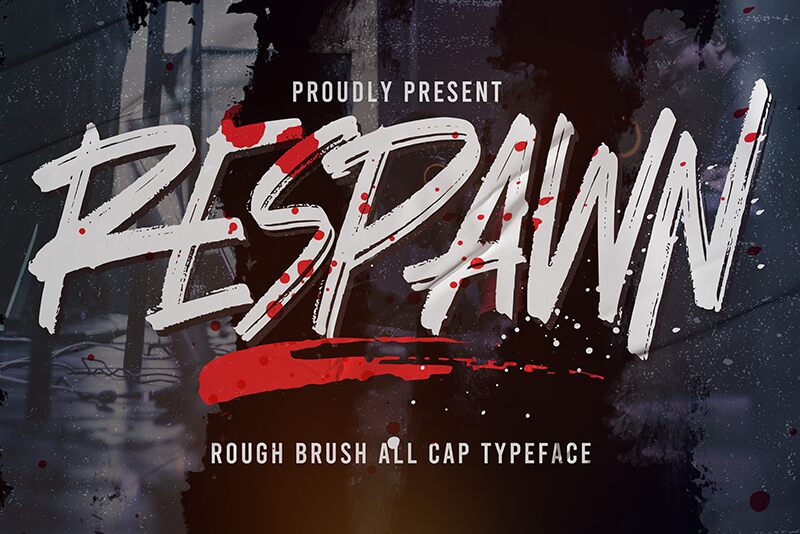
Introducing Respawn, a rough brush font created by Anang F & Malik Wsn of Gassstype Studio. Ideal for projects requiring an edgy, urban feel such as graffiti art, streetwear logos and apparel designs. Unleash your creativity with Respawn!